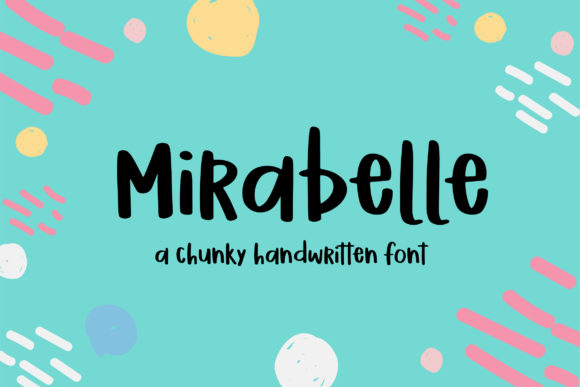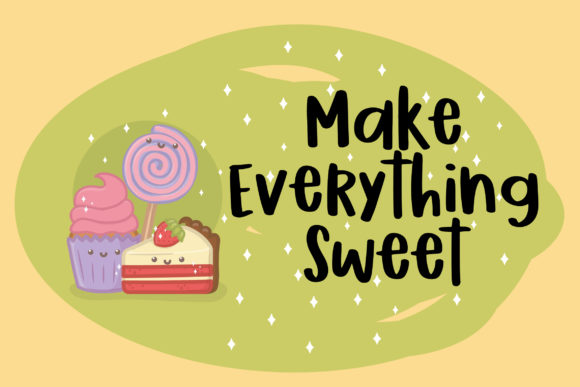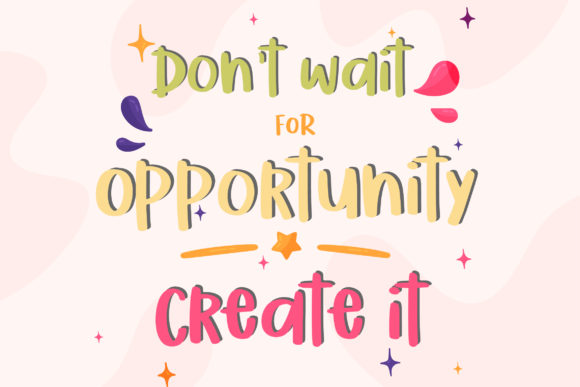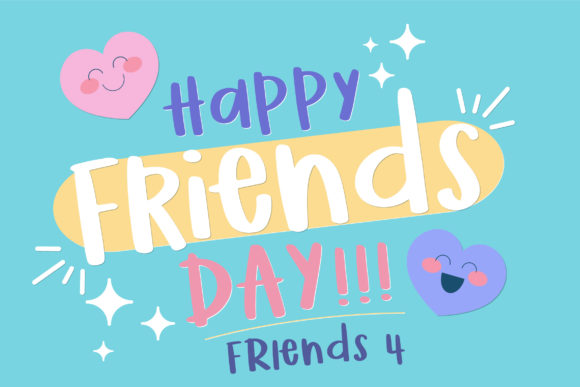
Mirabelle Font
About Mirabelle Font
Mirabelle is a chunky, spunky handwritten font. This handwritten is perfect for layering and adding life to your design!